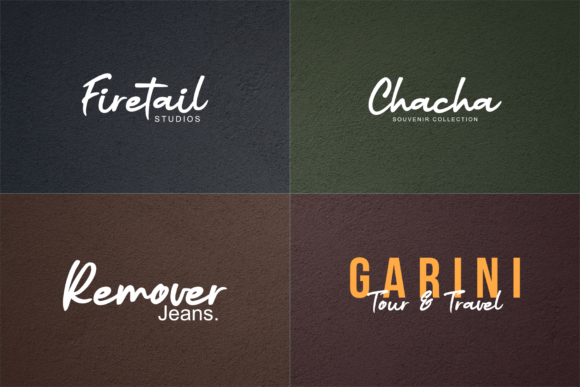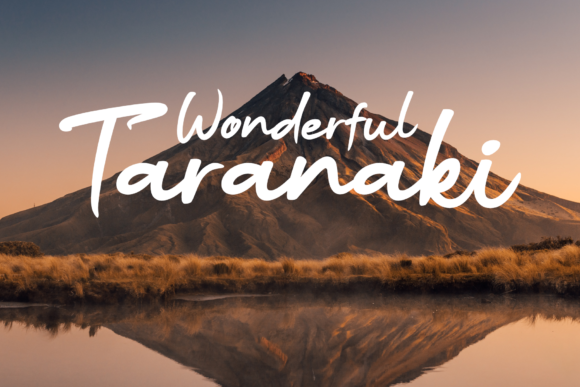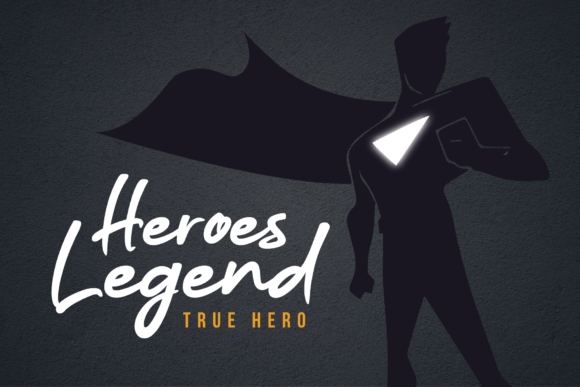
Introduction to Common Rejection Font
Common Rejection is a modern and stylish handwritten font.
It can be applied in logos, quotes, travel titles, movie titles, blogs, show event titles, t-shirt designs, tumbler designs, community and company logos .
Key Features of Common Rejection Font